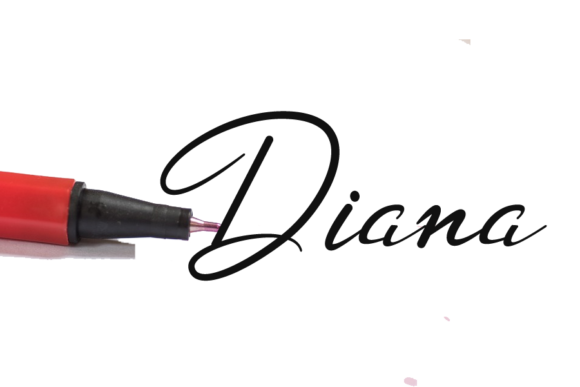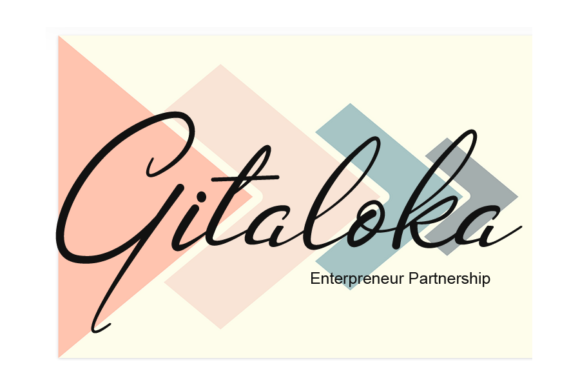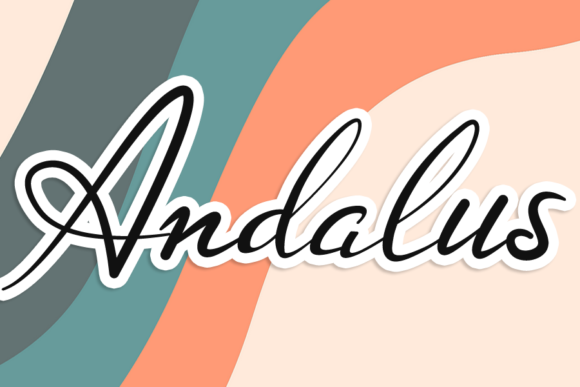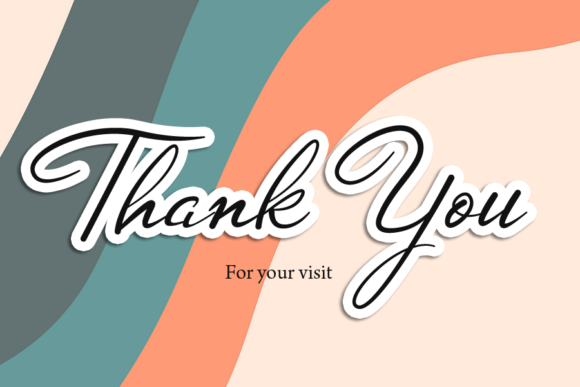
Introducing Denilla Font: The Sweet and Whimsical Script Font for Your Design Projects
Are you looking for a font that can add a touch of luxury and elegance to your design projects? Look no further than Denilla Font! This sweet, whimsical, flowing, and thin script font is perfect for designers and crafters who want to create stunning visual content that stands out from the crowd. In this article, we’ll take a closer look at Denilla Font, its features, and how you can use it to elevate your design projects.
What is Denilla Font?
Denilla Font is a beautiful script font that features characters that dance along the baseline, creating a flowing and organic look. The font is designed to be thin and elegant, making it perfect for use in a variety of design projects, from branding and packaging to stationery and digital graphics.
Key Features of Denilla Font
- Sweet and Whimsical: Denilla Font has a playful and whimsical feel that’s perfect for designers who want to create fun and engaging designs.
- Flowing and Organic: The font features characters that flow smoothly along the baseline, creating a natural and effortless look.
- Thin and Elegant: Denilla Font is designed to be thin and elegant, making it perfect for use in designs where a touch of sophistication is needed.
- Luxury Spark: With Denilla Font, you can add a touch of luxury to your designs, making them stand out from the crowd.
How to Use Denilla Font in Your Design Projects
Denilla Font is a versatile font that can be used in a variety of design projects. Here are some ideas to get you started:
- Branding and Packaging: Use Denilla Font to create stunning brand identities, including logos, business cards, and packaging designs.
- Stationery: Add a touch of elegance to your stationery designs, including invitations, greeting cards, and letters.
- Digital Graphics: Use Denilla Font to create beautiful digital graphics, including social media graphics, blog headers, and email newsletters.
- Crafting and Scrapbooking: Denilla Font is perfect for crafters and scrapbookers who want to add a touch of elegance to their projects.
Tips for Getting the Most Out of Denilla Font
Here are some tips for getting the most out of Denilla Font:
- Use it with contrasting fonts: Pair Denilla Font with bold and contrasting fonts to create visual interest and hierarchy.
- Experiment with colors: Denilla Font looks great in a variety of colors, so don’t be afraid to experiment and find the perfect hue for your design.
- Pay attention to spacing: Make sure to adjust the spacing between characters to create a smooth and flowing look.